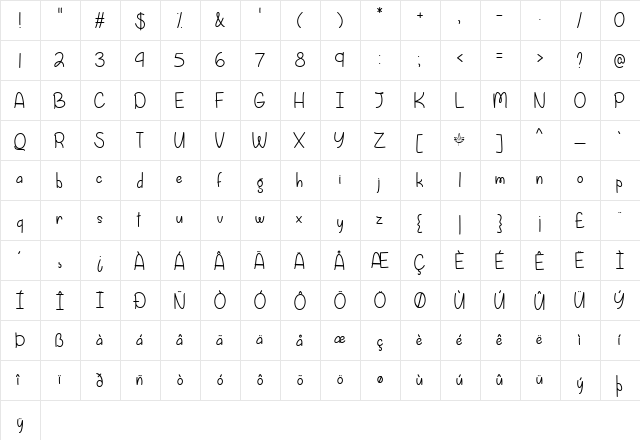
Fall is Coming Regular
| Designer | Misti's Fonts |
Design Context for Fall is Coming Typeface
Fall is Coming takes a measured approach to typography — its balanced proportions and neutral character make it a reliable workhorse for both digital and print work.